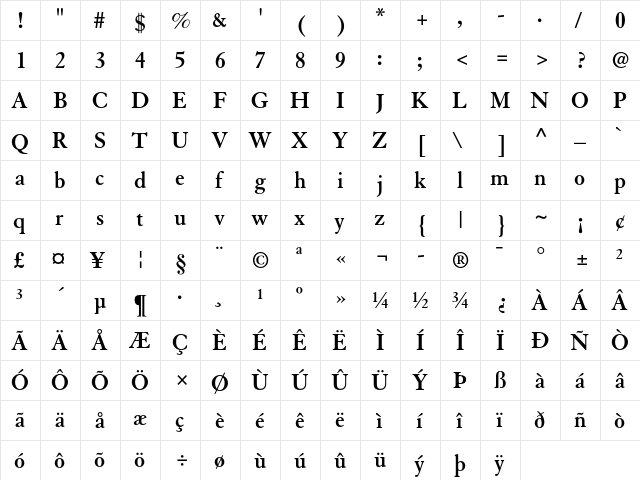
Granjon Bold
Design Context for Granjon Typeface
Granjon is a composed and adaptable typeface that performs quietly and consistently across a wide range of design contexts. The heavy weight commands attention and anchors typographic hierarchies.